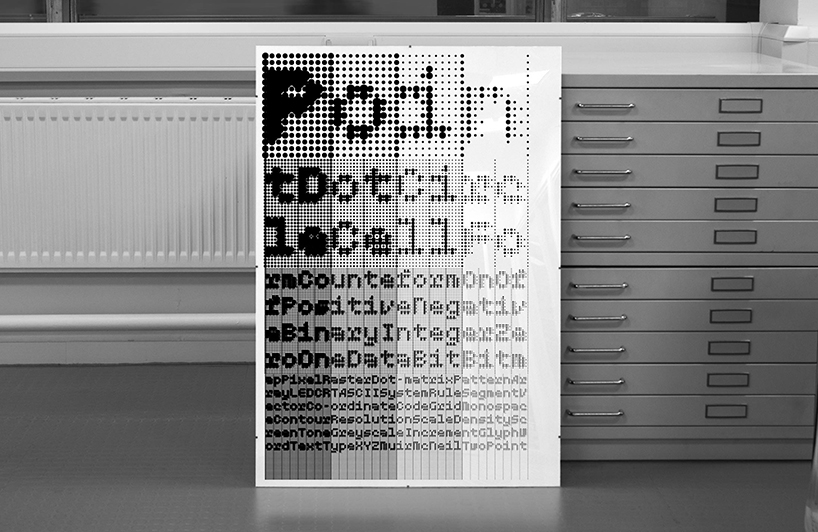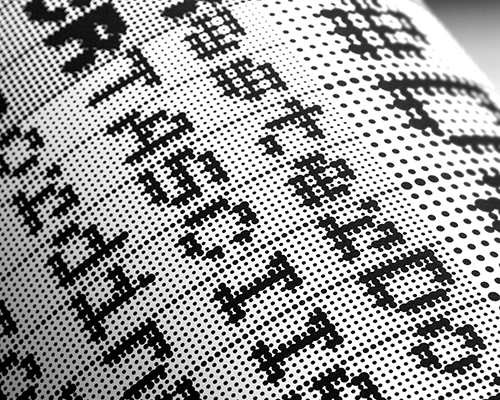
new geometric typefaces and posters from muirmcneil
muirmcneil have released four new geometric typeface systems together with the publication of a limited edition of corresponding typographic posters.
top image: two point poster, 100x70cm
paul klee famously said that drawing was ‘taking a line for a walk’ but nowadays we exercise dots in exactly the same way. almost all contemporary media are assembled from tiny static points in increasing volume and at increasingly microscopic sizes. sophisticated software programmes trace our smallest gestures, ideas and decisions in intricate arrangements of binaries, off or on, on or off. dots cluster tightly together in massive formations, hiding in plain sight to create spectacular illusions of images, words, objects, motion and sound.
two point poster – details
there are four typefaces within the system, each available in extensive variations and subcomponent versions which can be used for the development of unique design outputs.
twopoint is a monospaced geometric type system based on early dot matrix and led display lettering.
threepoint is a system of three-dimensional display typefaces designed in four viewpoints or projections. it is a dot-based development of muirmcneil’s 2013 panopticon system.
fourpoint is an optical/geometric type system that explores the relationships between scale, density, information and resolution.
tenpoint is a modular type system that attempts to locate typographic objects at the lowest limit of their function as vehicles of communication; to use the fewest dots.
threepoint poster, 100x70cm
three point poster – details
the typefaces in each system are designed to interact with one another, offering a wide range of visual possibilities. using page layout, bitmap or vector design software, the user can apply selected styles either in precisely interlocking layers or in easily calibrated offset overlays. outlines, tints, colours, textures, patterns and transparencies can be applied as appropriate. these features provide an enormous number of opportunities when working in print and fixed media. they are also particularly useful in motion graphics where their precise layering and calibration allows perfect control over positions and transitions.
fourpoint poster, 100x70cm
fourpoint poster – details
the series of four large-format silkscreened posters featured here have been published in glorious black-and-white to accompany each typeface system. muirmcneil’s website, provides extensive information on their design background and development.
tenpoint poster, 100x70cm
tenpoint poster – details